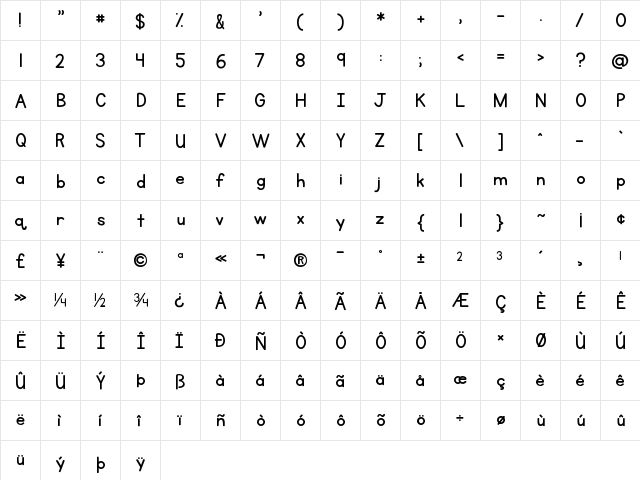
KG Primary Penmanship 2 Regular
| Foundry | Kimberly Geswein |
| Designer | Kimberly Geswein |
Design Context for KG Primary Penmanship 2 Typeface
KG Primary Penmanship 2 is a composed and adaptable typeface that performs quietly and consistently across a wide range of design contexts.